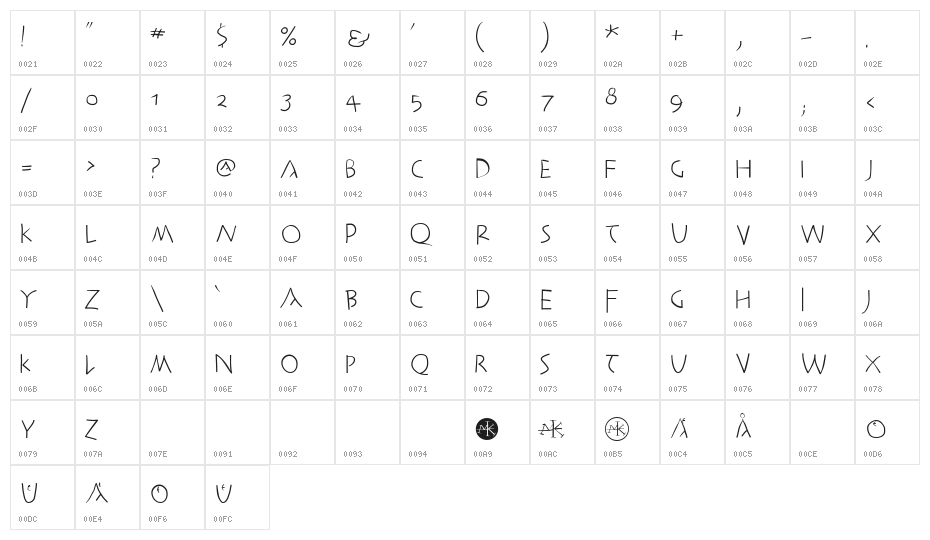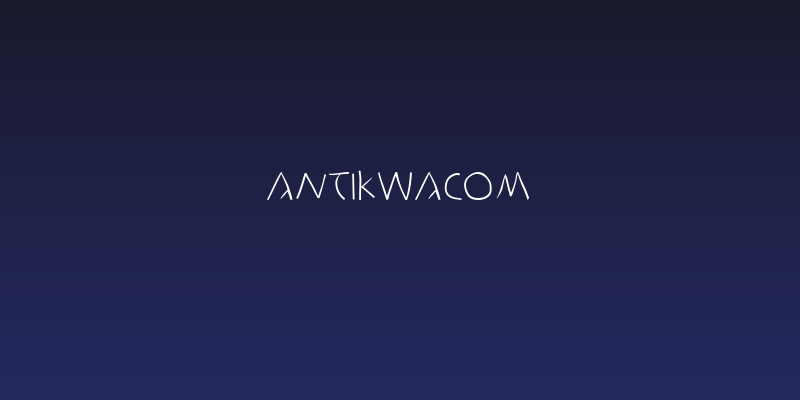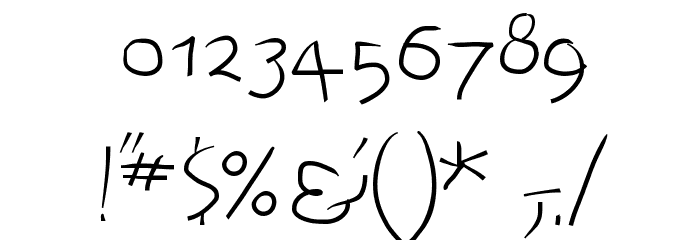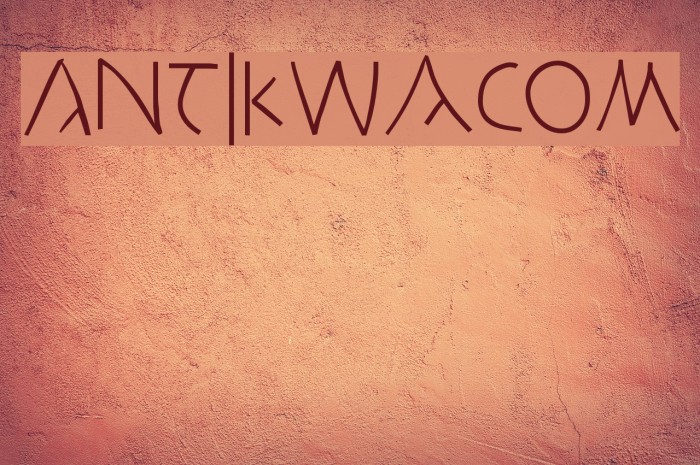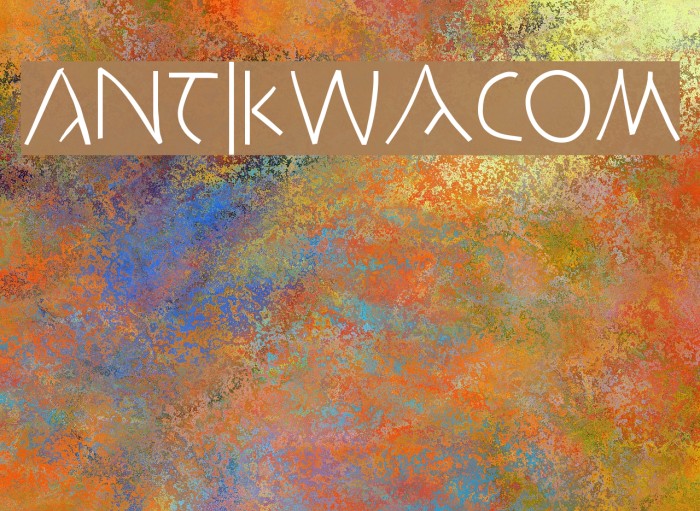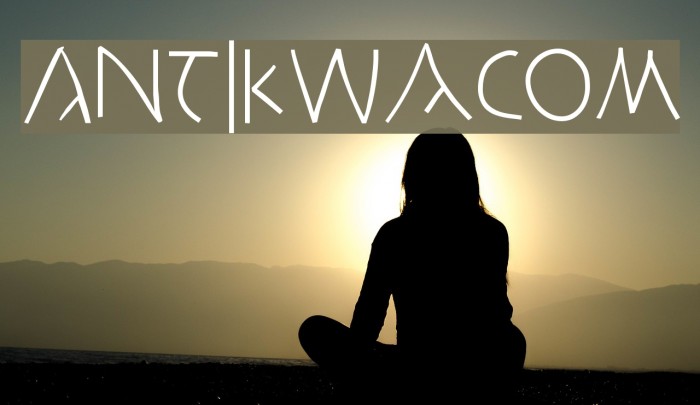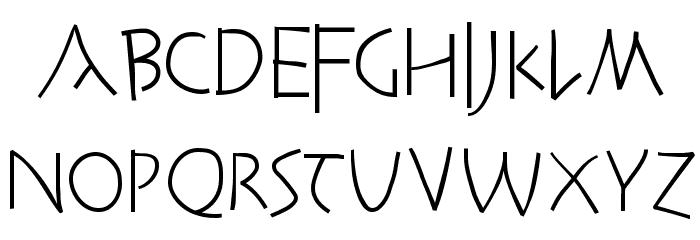
AntikWaCom Font
AntikWaCom Description
This font features a unique and artistic style with a distinctively angular and slightly irregular form. The characters have a hand-drawn appearance, giving them a whimsical and creative feel. The uppercase letters are tall and narrow, with sharp angles and varying stroke widths that add a dynamic quality. The lowercase letters maintain the same artistic flair, with some characters having exaggerated curves and others featuring unexpected angles. The numerals are consistent with the overall style, offering a playful yet sophisticated look. Special characters are creatively designed, matching the font's artistic theme.
| Overall Style | Artistic |
| Use Case | Logos, Posters, Creative projects |
| Proposed Projects | Ideal for creative projects such as art posters, children's book illustrations, and unique branding materials. |